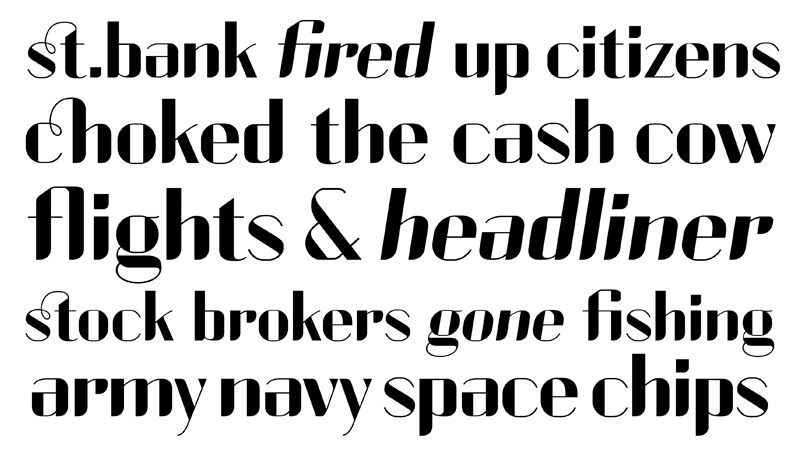
Currency-Slanted
Currency Slanted by Jacktherabbit is a free retro display font with an elegant, sharply pitched silhouette. Extreme shifts from hairline strokes to broad black curves give the lettering a dramatic fashion-magazine look, and its narrow forms add speed.
Fashion and beauty brands are its clearest audience, especially for perfume packaging and campaign titles with a theatrical edge. Music posters and editorial covers offer another good setting. Across these uses, the steep angle and abrupt stroke changes turn a name or title into part of the image rather than ordinary labeling.
Currency has a consistent x-height. Its shoulder is slightly broader than its curved foot, and its ascender is shorter to moderate the contrast between thick and thin strokes.